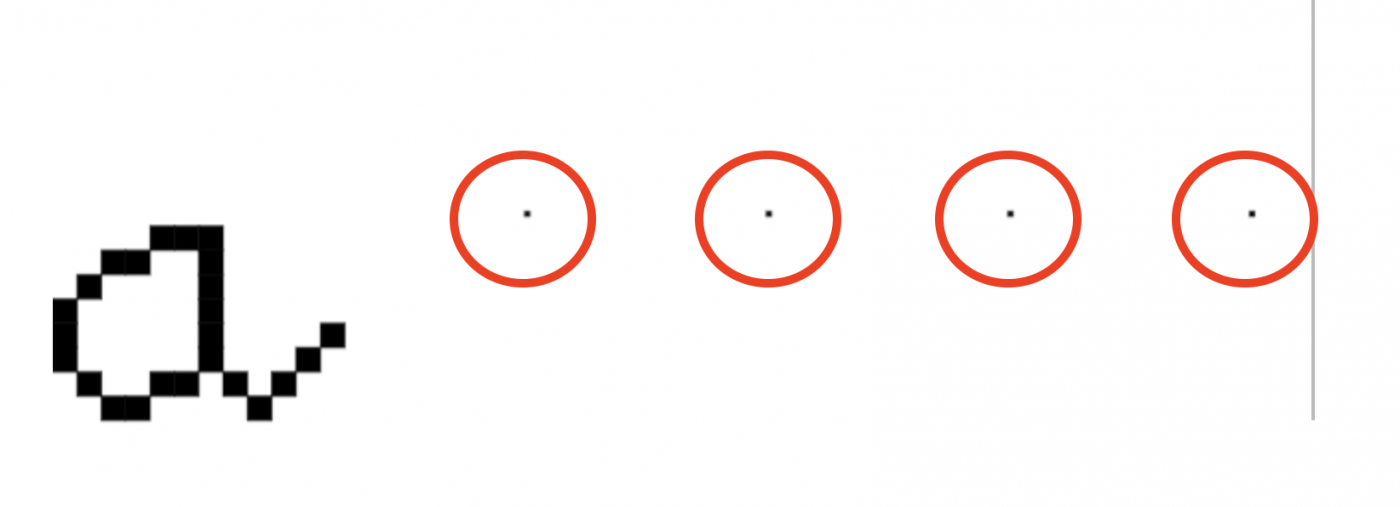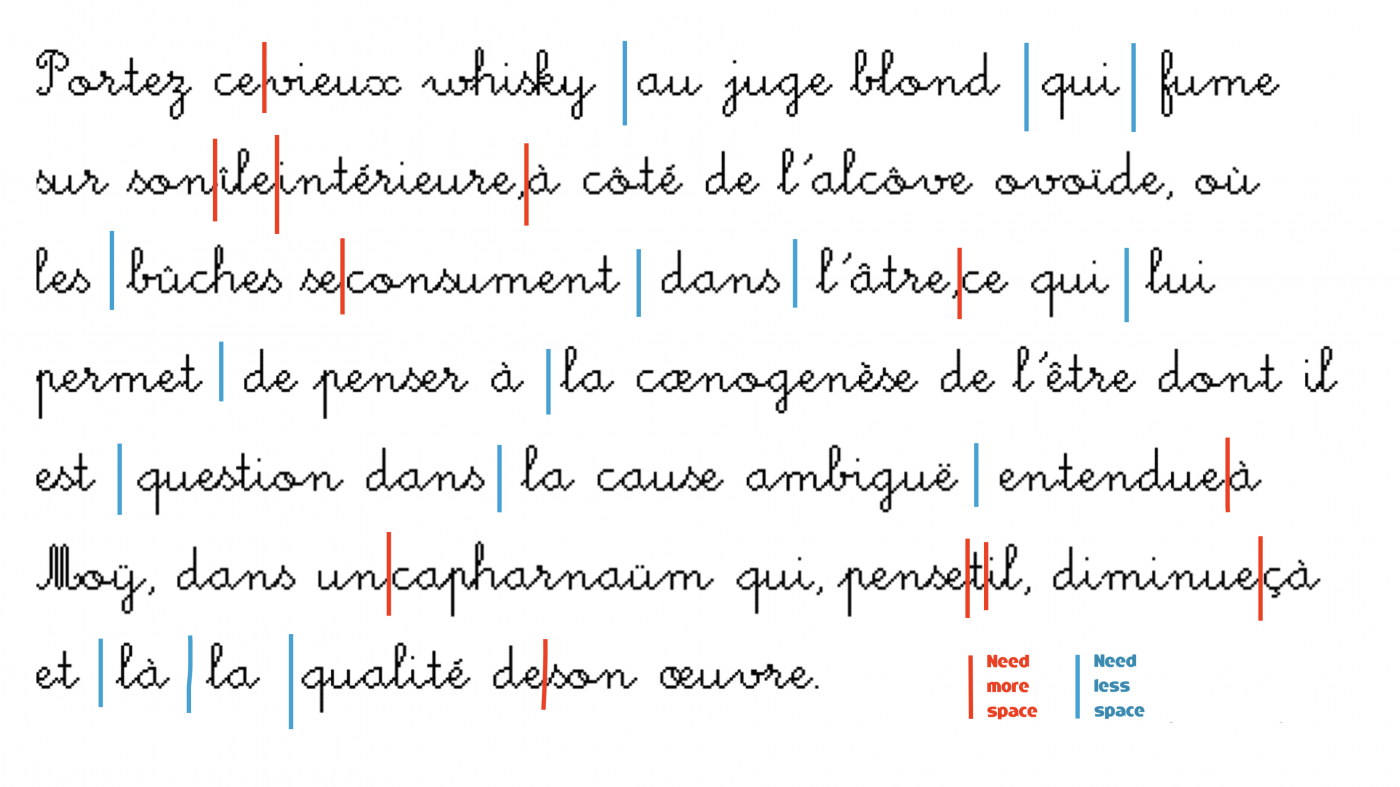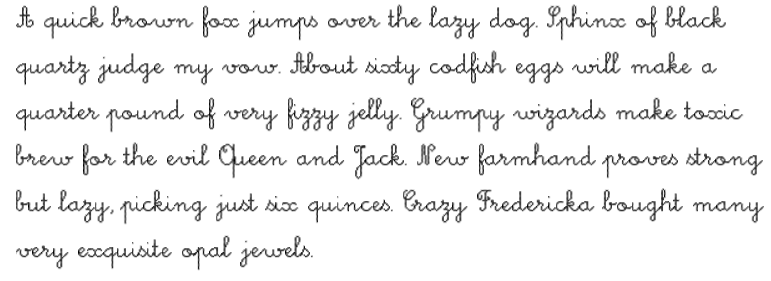
Nice one. Btw, the space has an extra brick. Waiting for the uppercase.
It is always hard to make connections work well enough for each letter combination. Check how "s" connects to letters before and "b" to letters after, they may need some work.
ok @elmoyenique and @Peter (Petruccio) i fixed it
t's a lot of pairs to checking, I know. We can notice you a few, but not all of them. You should pay special attention to the most common glyph combinations or pairs to get life to a pretty and usable font. If you look at how the glyphs are joined before the "t," you'll know what I mean. Go on.
Handwriting fonts are not easy. To connect the letters properly, creators add custom ligatures, sometimes hundreds of them. Those ligatures have 2-3 letters to ensure the natural flow of the script. You may find online tutorials about this topic.
The fact that FontStruct has no support for custom ligatures (well, those that don't exist as a Unicode codepoint) as of writing this doesn't help much and would require external software like FontForge, Glyphs, FontCreator, FontLab, and so on to get working correctly.
Well, you could build them in other symbols, but then it would appear as gibberish for those that dont have the font installed if you do use those ligatures in those symbols.